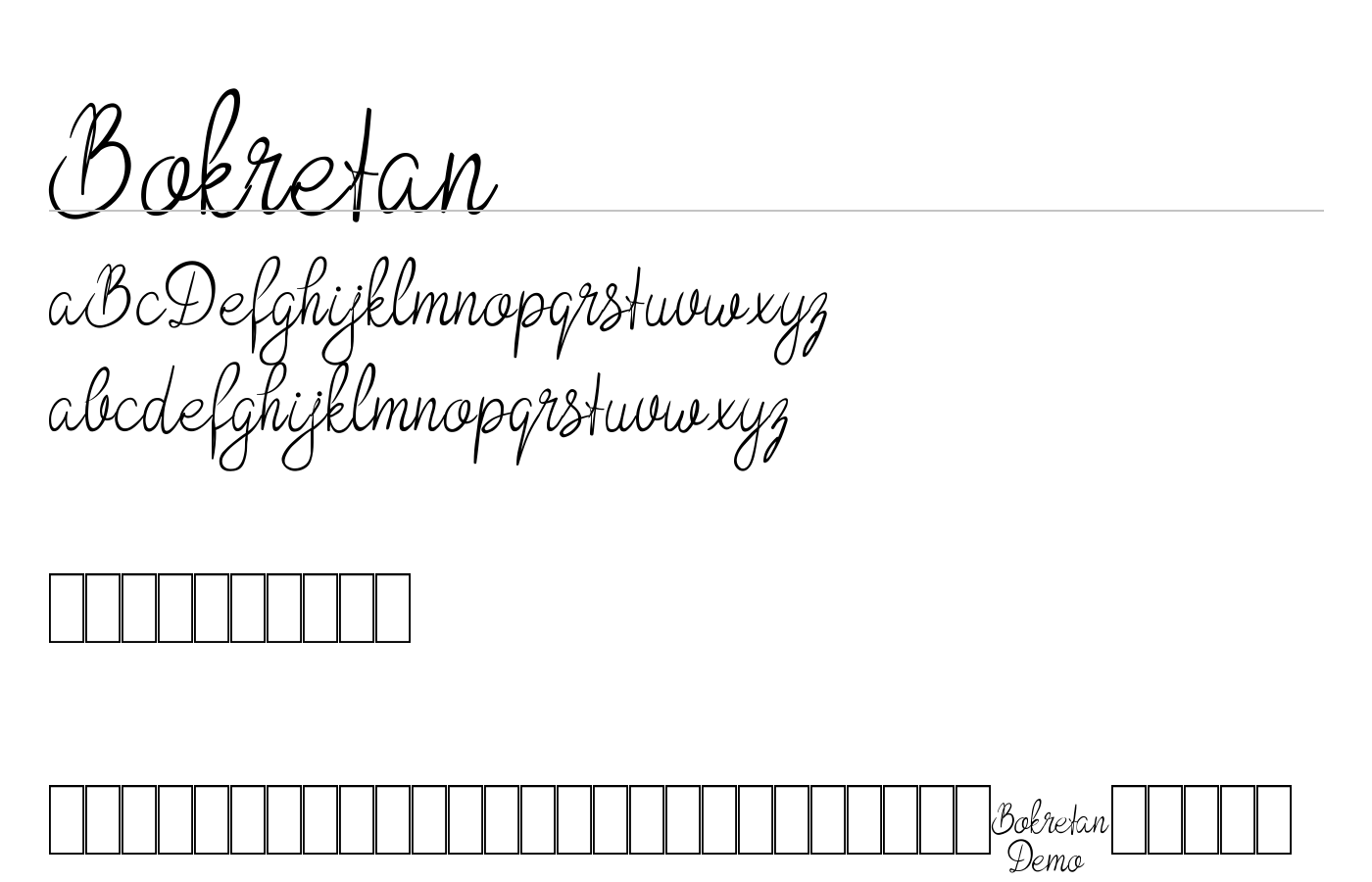
Bokretan is a delicate, elegant script font characterized by its thin strokes and flowing, handwritten style. With its tall, narrow letterforms and graceful curves, it conveys a personal and sophisticated feel, making it ideal for invitations, branding, and editorial uses where a refined, artistic touch is desired. This font works best in designs that aim for a modern yet charming impression, especially in fashion, beauty, or creative projects.
Bokretan Font
About Bokretan Font